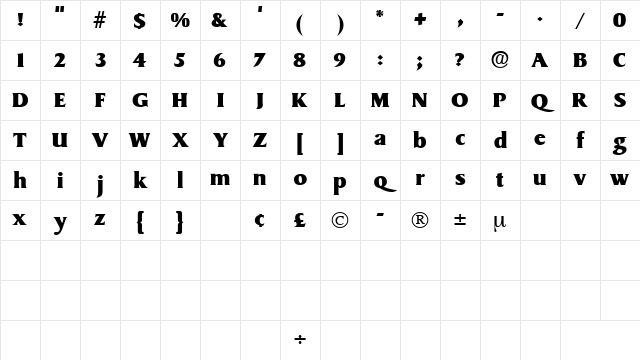
BrusquerieDisplaySSK Regular
Complete BrusquerieDisplaySSK Regular glyph index. Displaying only characters natively supported by BrusquerieDisplaySSK Regular font.
Design Context for BrusquerieDisplaySSK
BrusquerieDisplaySSK is built around its visual character rather than neutral utility - its distinctive forms are designed to make an impression at display sizes.
Font Pairing: Pair with a clean neutral sans-serif for body copy to let BrusquerieDisplaySSK's character lead without overwhelming the composition.
Pro Tip: Use BrusquerieDisplaySSK exclusively at display sizes - it was designed to be seen, not read at length. Let a neutral companion handle body copy.